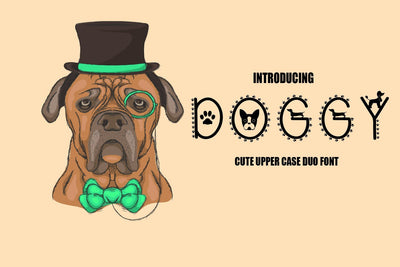
Doggy Font - A Cute upper case duo font
It's called DOGGY Font. It comes with Two fonts ( Doggy & Doggy Paw font)
DOGGY Font is an unique, handwritten font with modern and classic touch!
It is a perfect choice for crafters with cutting machines.
DOGGY Font is a fun font that is enough for cutting with Cricut & Silhouette crafting machines, for Titles for kid's book, scrapbook, logo, icon, phrases
or quotes for winter greeting cards
photo overlay, short phrases, children’s book, gift shops tag,
presentation in social media Pinterest, Instagram, Facebook or others.